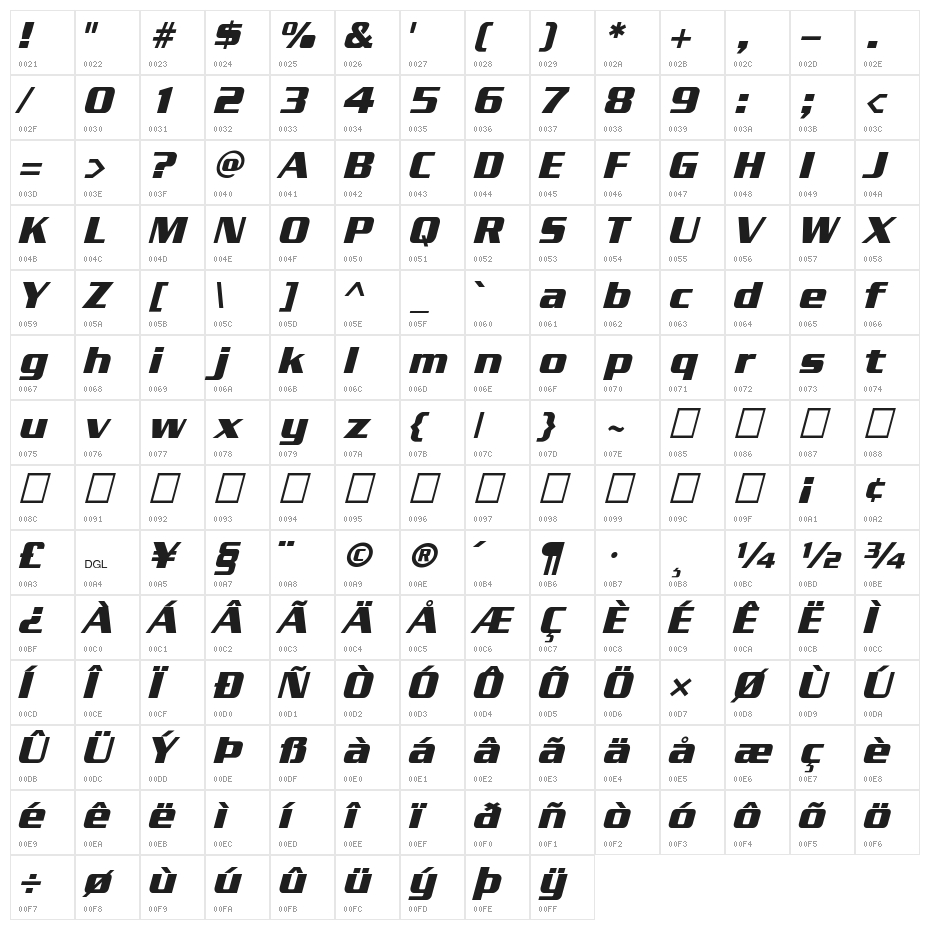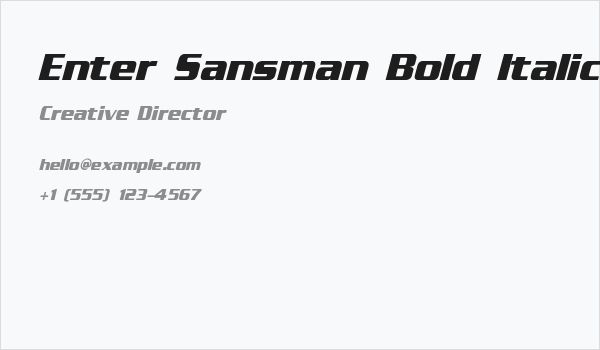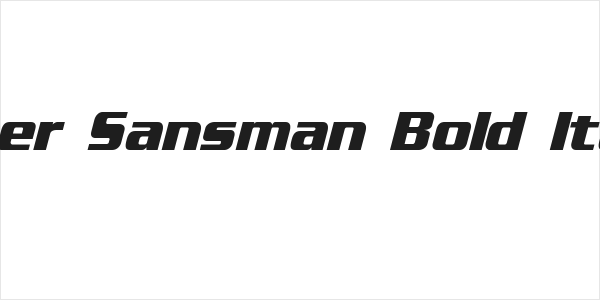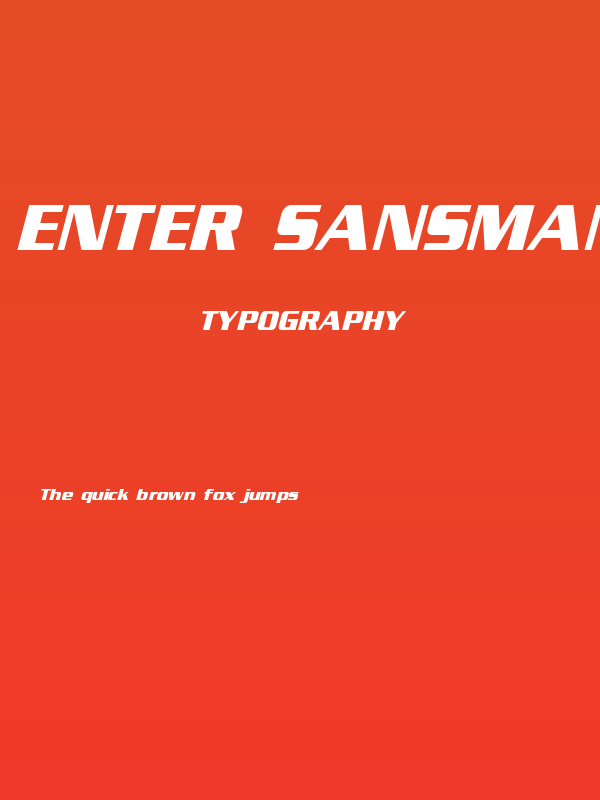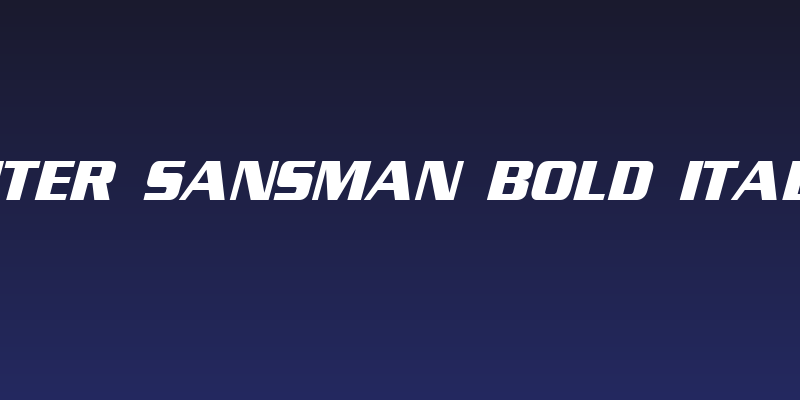
Enter Sansman Bold Italic Font
Enter Sansman Bold Italic Description
This font features a bold and italicized style, characterized by its strong, dynamic presence. The letters are slanted, giving a sense of motion and energy. The strokes are thick and consistent, providing a robust appearance. The uppercase and lowercase letters maintain a uniform width, contributing to a cohesive look. The numerals and special characters are designed with the same boldness and slant, ensuring visual harmony across all elements. The overall design is modern and sleek, suitable for making a strong visual impact.
| Proposed Projects | Ideal for sports branding, dynamic posters, modern advertising, and impactful headlines. |